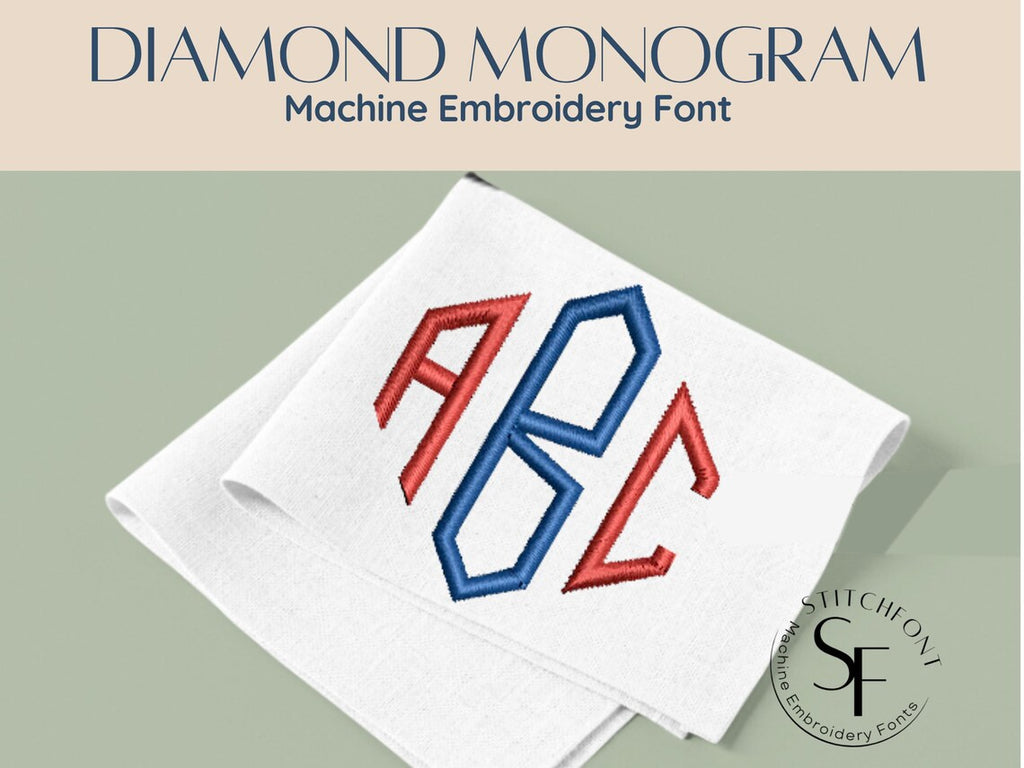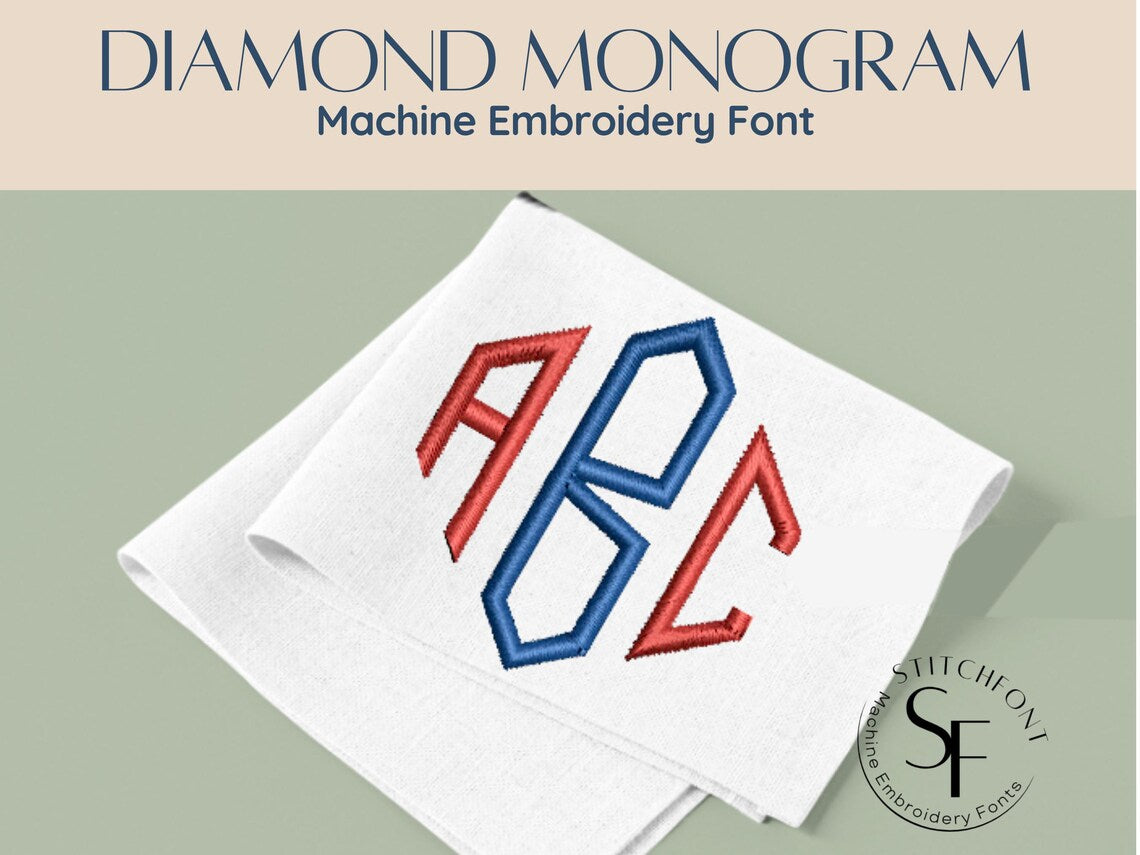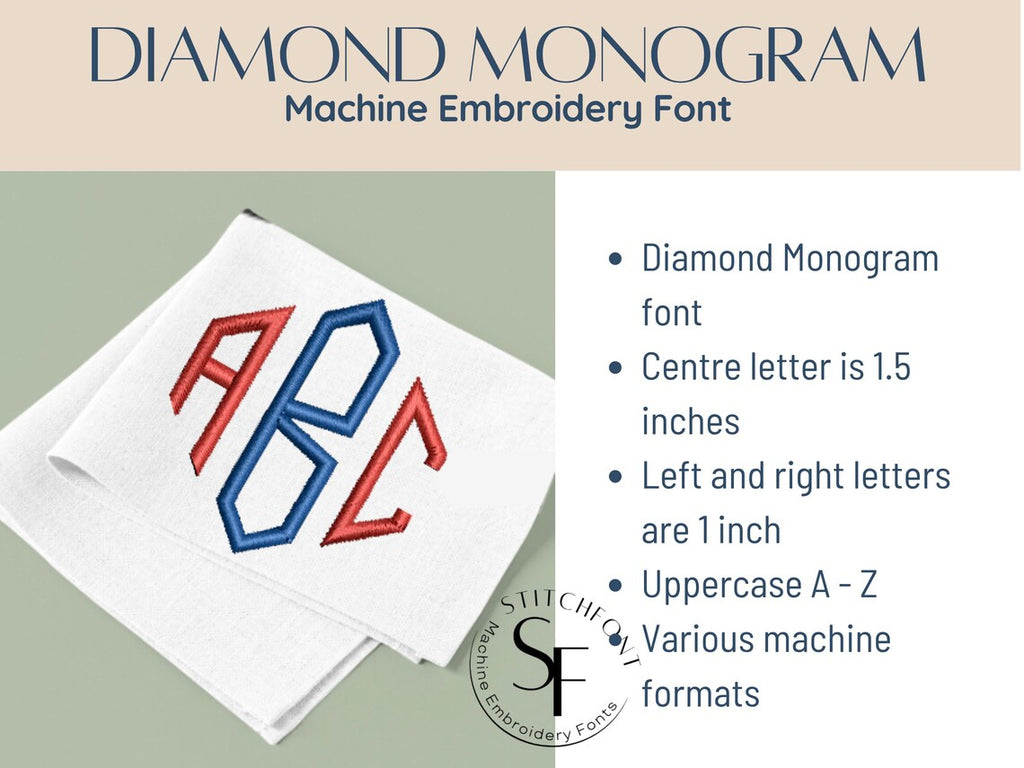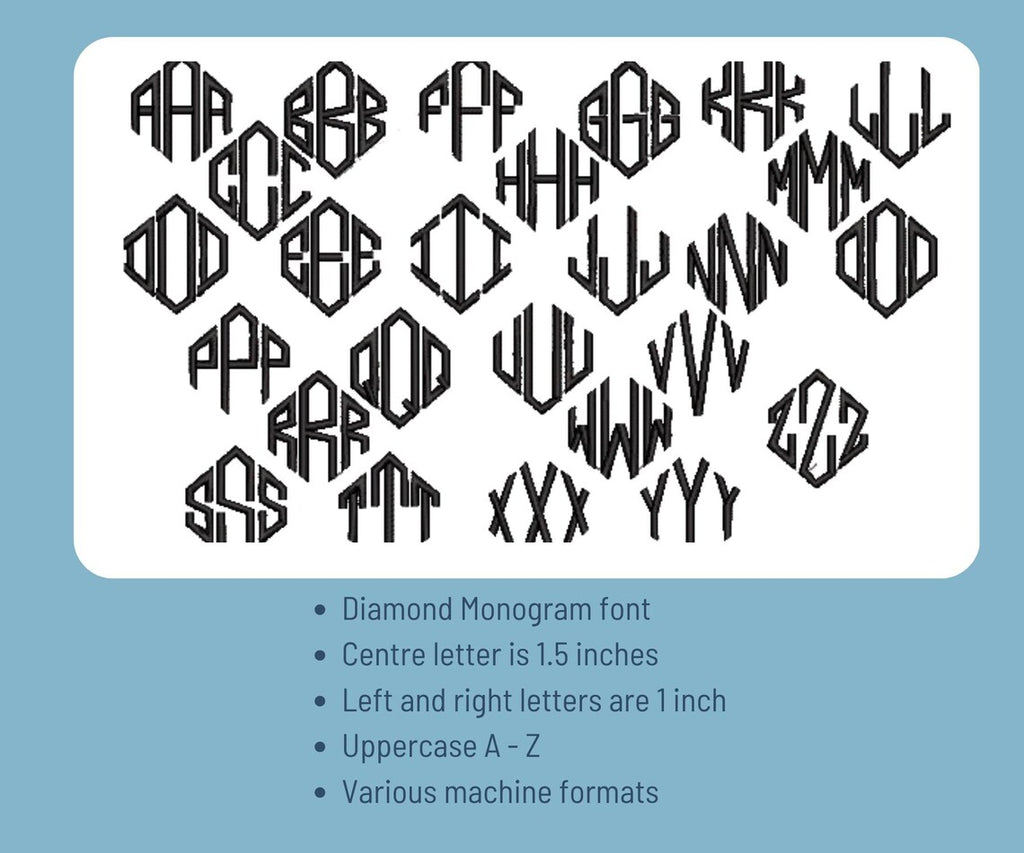
π Diamond Monogram Embroidery Font β Modern, Geometric Elegance for Personalized Projects π
Create bold, eye-catching monograms with the Diamond Monogram Font β a striking satin stitch font designed for crisp, modern personalization. With its clean lines and angular style, this font is perfect for high-impact initials on bags, towels, gifts, and more.
* One fixed-size monogram set
* Center Letter: 1.5"
* Side Letters (Left & Right): 1"
* Uppercase AβZ only
* Satin Stitch finish
β¨ Perfect For:
* Monogrammed towels, robes, and totes
* Personalized gifts and accessories
* Modern, geometric embroidery designs
π Why Youβll Love It:
* Unique and sharp monogram style
* Balanced layout with bold symmetry
* Smooth satin stitches for a polished finish